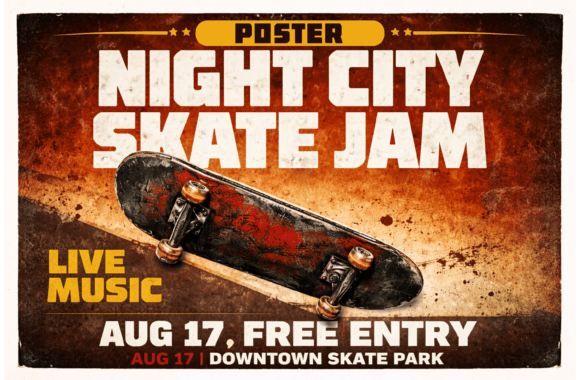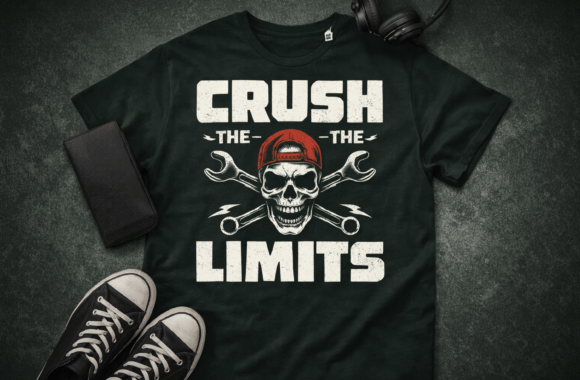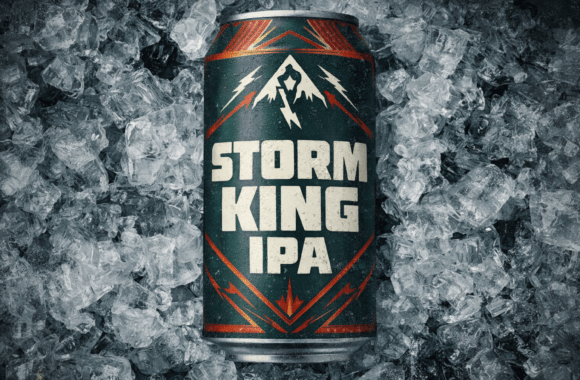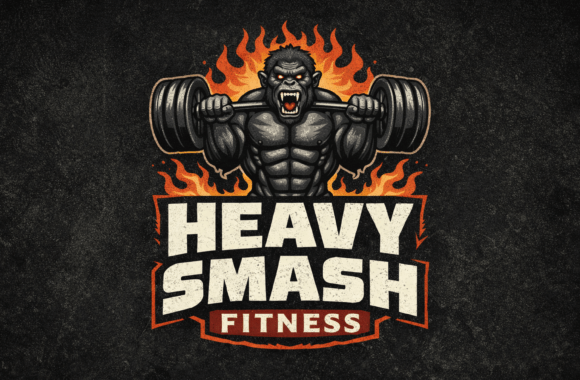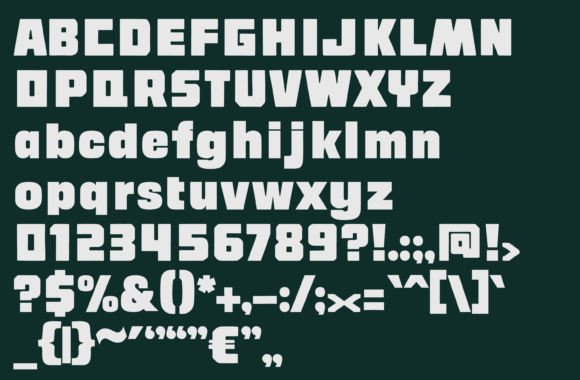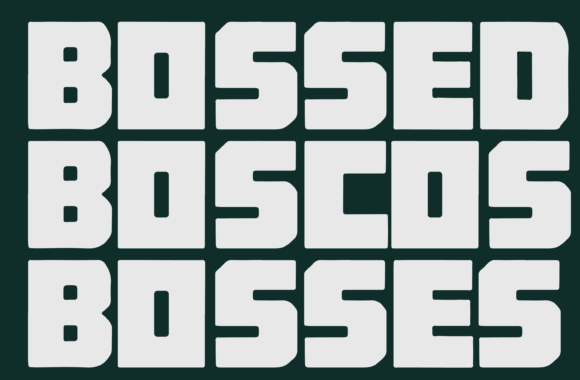
The Perfect Font for Making a Statement: Introducing Bosson
Remember that moment when you’re brainstorming ideas for a new project and you know exactly what you want – a font that screams confidence, energy, and boldness? For designers, finding the right font can be a game-changer. It’s the difference between a design that blends into the background and one that grabs attention and leaves a lasting impression.
Enter the Bosson Font – a powerful, chunky display font designed to make a strong visual impact. Its bold shapes and slightly raw character make it perfect for headlines, logos, posters, and branding projects that require maximum attention-grabbing power. With its solid structure and clear readability, the Bosson Font is ideal for large titles, packaging designs, and apparel graphics that need to stand out from the crowd.
Bosson Font Key Features
- Font Family: Bosson Font is a sans-serif font family designed for digital use.
- Font Size: Bosson Font is available in 8 font weights, ranging from Light to Black, to cater to various design needs.
- Unique Characteristics: Bosson Font features a clean and modern design, with a subtle rounded edge and open counters for improved readability.
- Language Support: Bosson Font supports a wide range of languages, including Latin, Cyrillic, and Greek scripts, making it a versatile choice for global designs.
Bosson Font Review
The Bosson Font is a bold, sans-serif font that’s sure to grab attention. It’s a great choice for titles, headings, and other text elements where you want to emphasize a particular message.
- Unique design aesthetic: The Bosson Font has a distinctive, modern look that sets it apart from other sans-serif fonts.
- High legibility: The font is highly legible, even at small font sizes, making it a great choice for digital applications.
- Customizable: The Bosson Font comes in a range of weights and styles, allowing you to customize its look to suit your design needs.
- Not suitable for body text: While the Bosson Font is great for titles and headings, it may not be the best choice for body text, where readability is key.
- May be too bold: In some cases, the Bosson Font may come across as too bold or overpowering, which can be jarring to the user.
Overall, the Bosson Font is a solid choice for designers who want to add some visual interest to their designs. While it may have some limitations, its unique design aesthetic and high legibility make it a great option for titles, headings, and other emphasis text elements.
Inter is a sans-serif font designed by Rasmus Andersson. It’s a great alternative to Bosson Font when you need a modern and minimalist look for digital products. Inter is more geometric and has a slightly condensed look, making it suitable for titles and headings.
Q: What is the recommended font size and line height for the Bosson Font?
For optimal readability, we recommend using a font size between 12-14 points and a line height of 1.2-1.5 times the font size. This will help ensure that the text is clear and easy to read, while also maintaining a visually appealing layout.